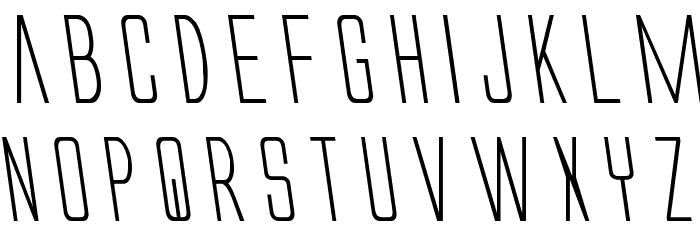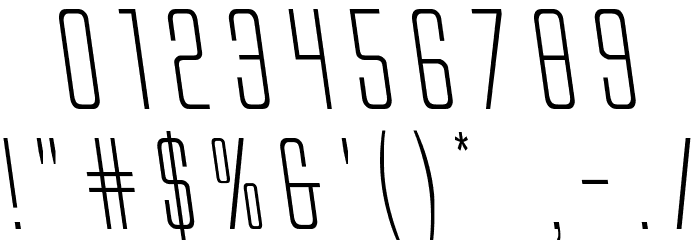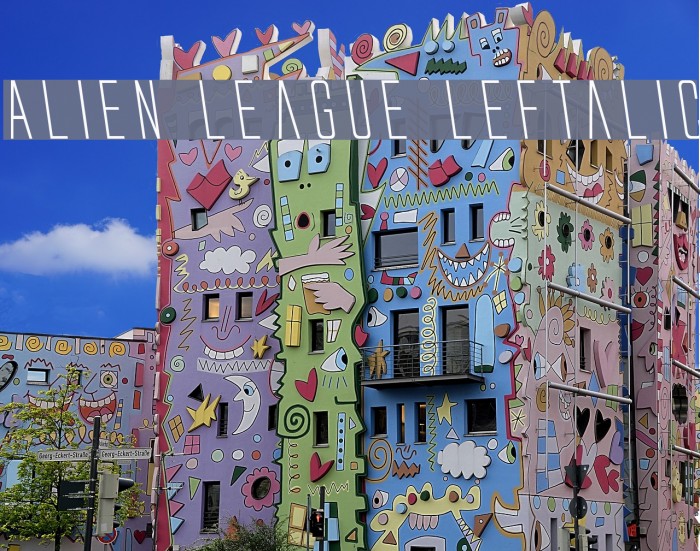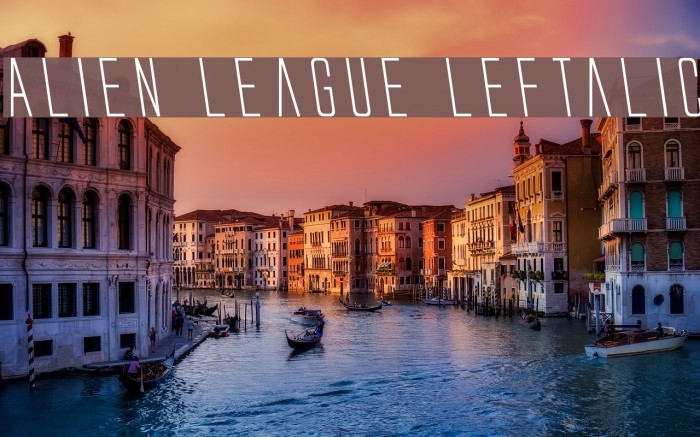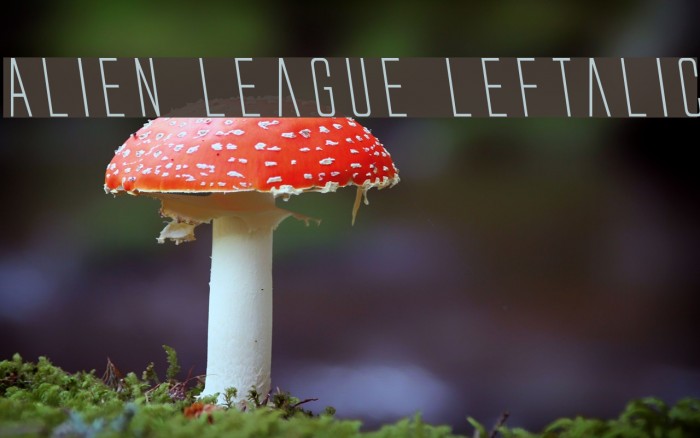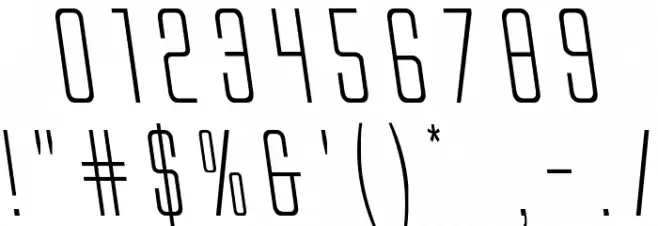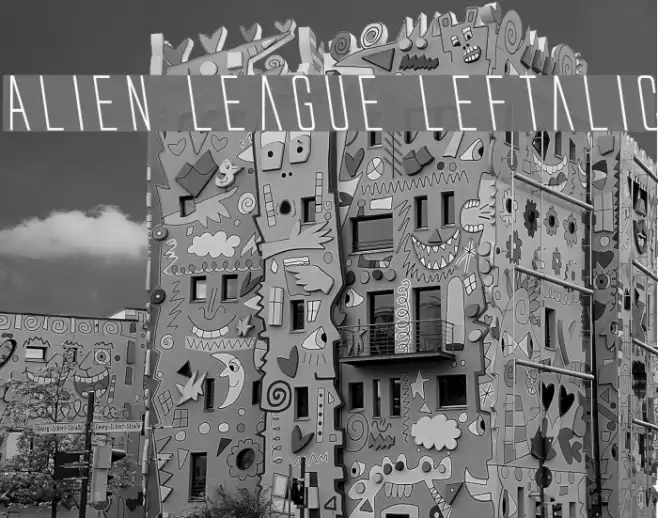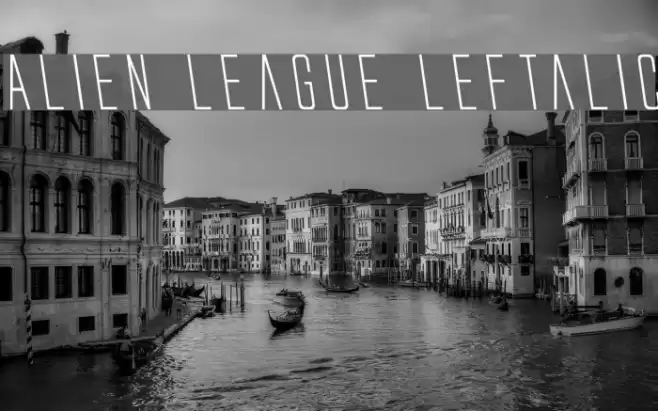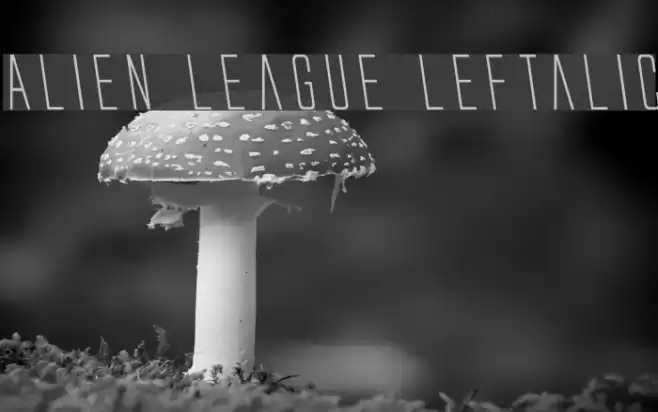
Alien League Leftalic
This font exhibits a futuristic and sleek design with elongated, narrow characters that convey a sense of modernity and innovation. The letters are slightly slanted, adding a dynamic and forward-moving feel. The strokes are consistent in width, giving it a uniform appearance. The uppercase and lowercase letters maintain a similar style, with clean lines and minimalistic features. The numerals are designed to match the overall aesthetic, ensuring cohesion across all characters. Special characters are included, maintaining the same stylistic approach. This font is ideal for projects that require a modern and tech-savvy look.
A futuristic, narrow, and slightly slanted font with a sleek and modern design.
- Proposed Projects: Ideal for technology branding, sci-fi themed designs, modern advertising, and innovative product packaging.
- Width: Condensed
- Use Case: Headlines, Logos, Branding